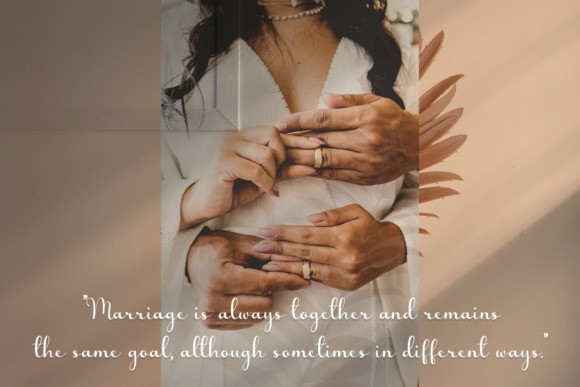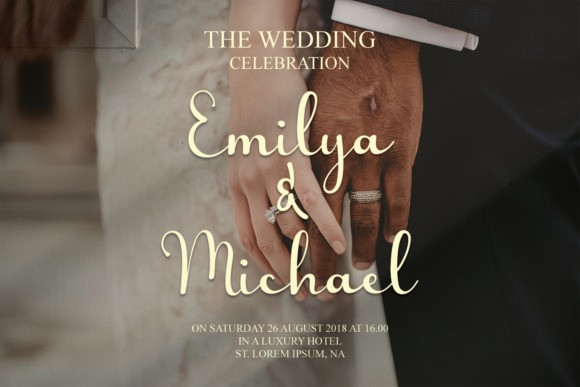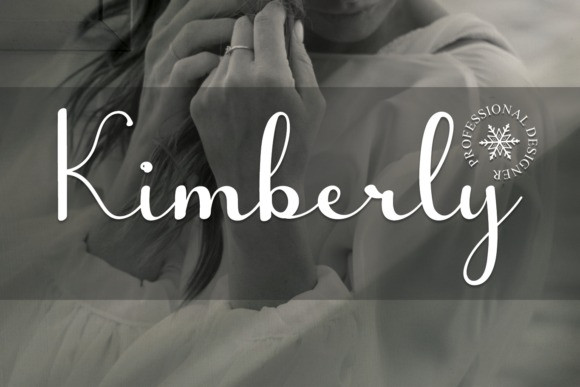
Kimberly Font
Kimberly Font is a well-balanced and delicate script font that exudes elegance and class. This font was particularly crafted for those who need a beautiful and refreshing look to their designs.